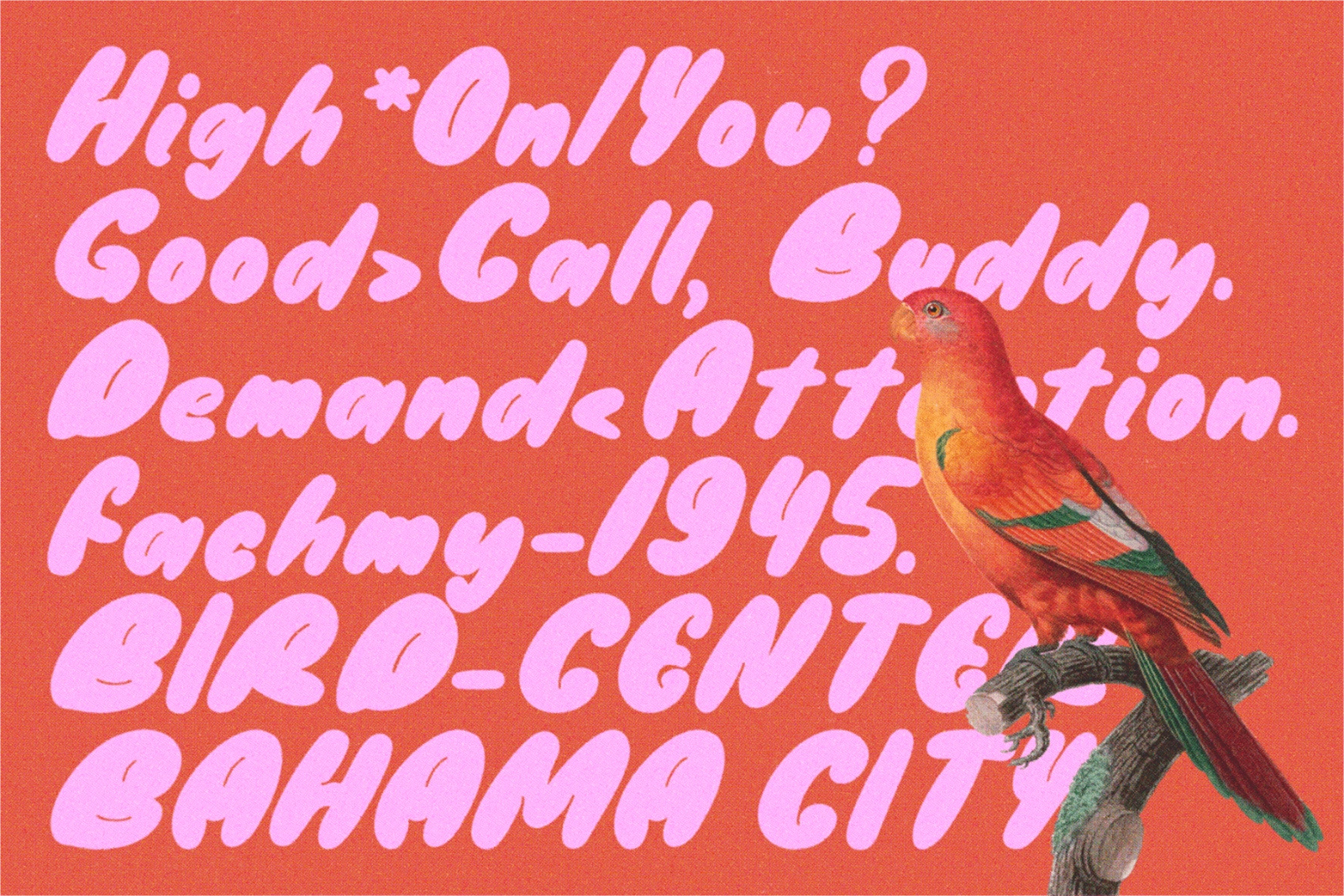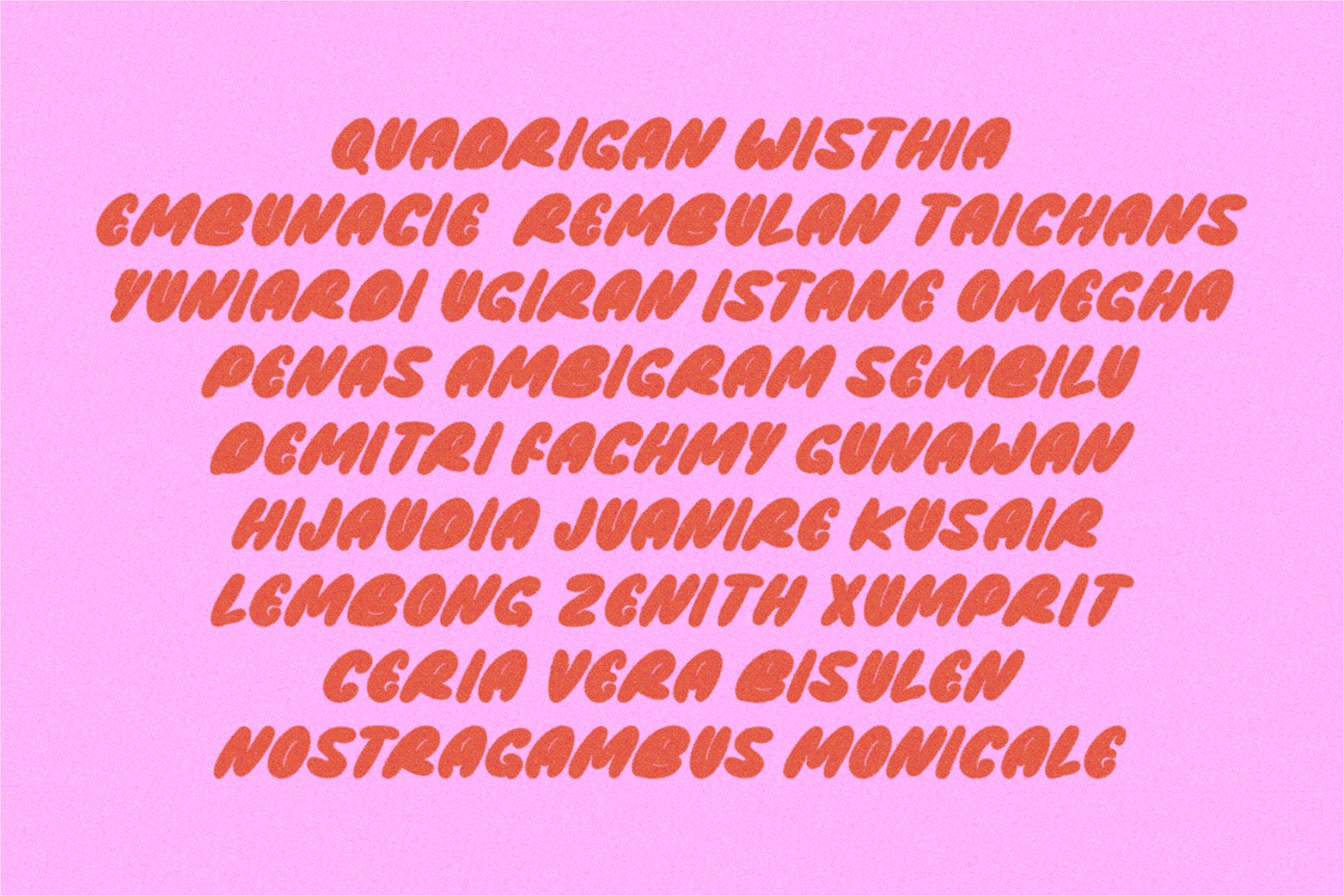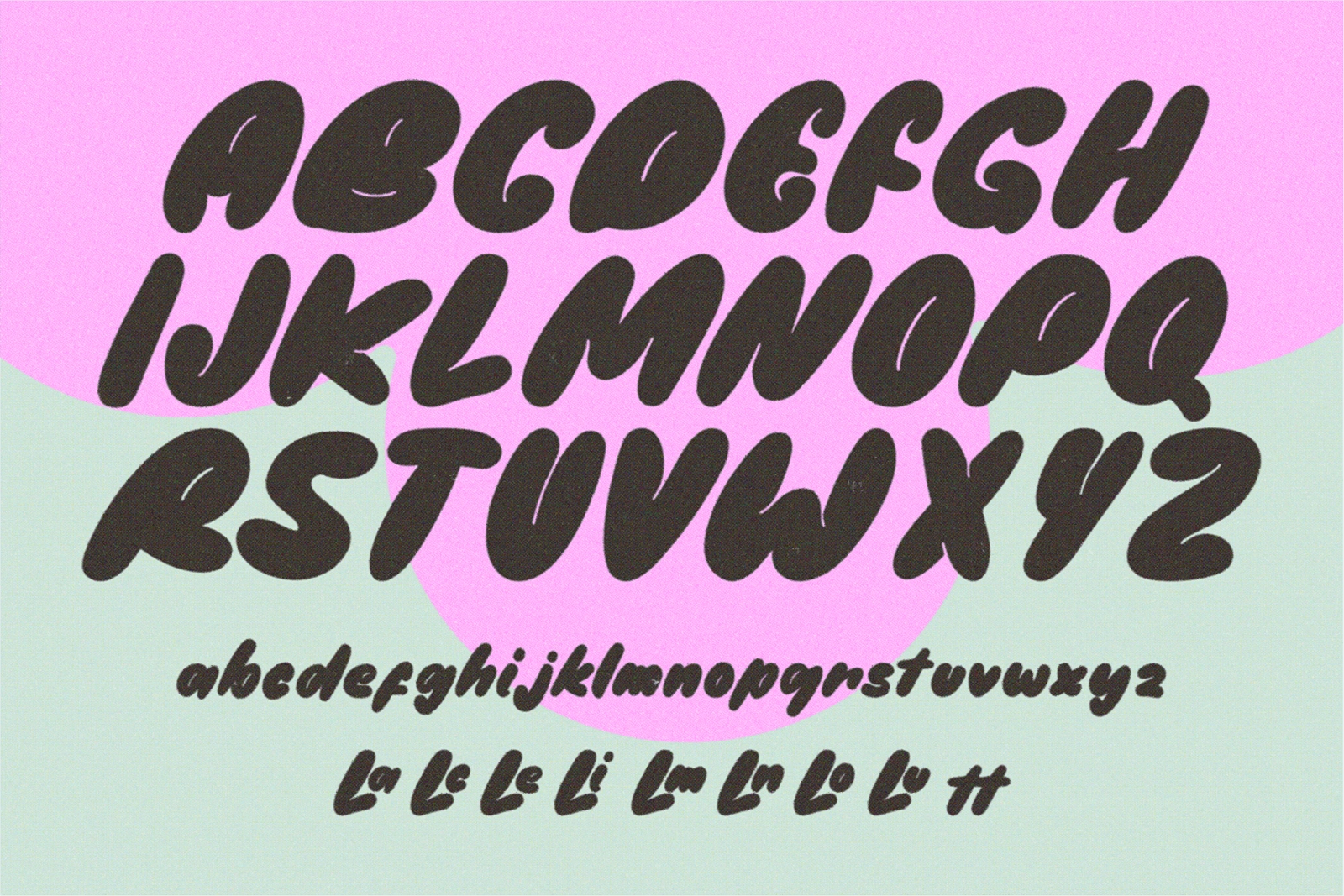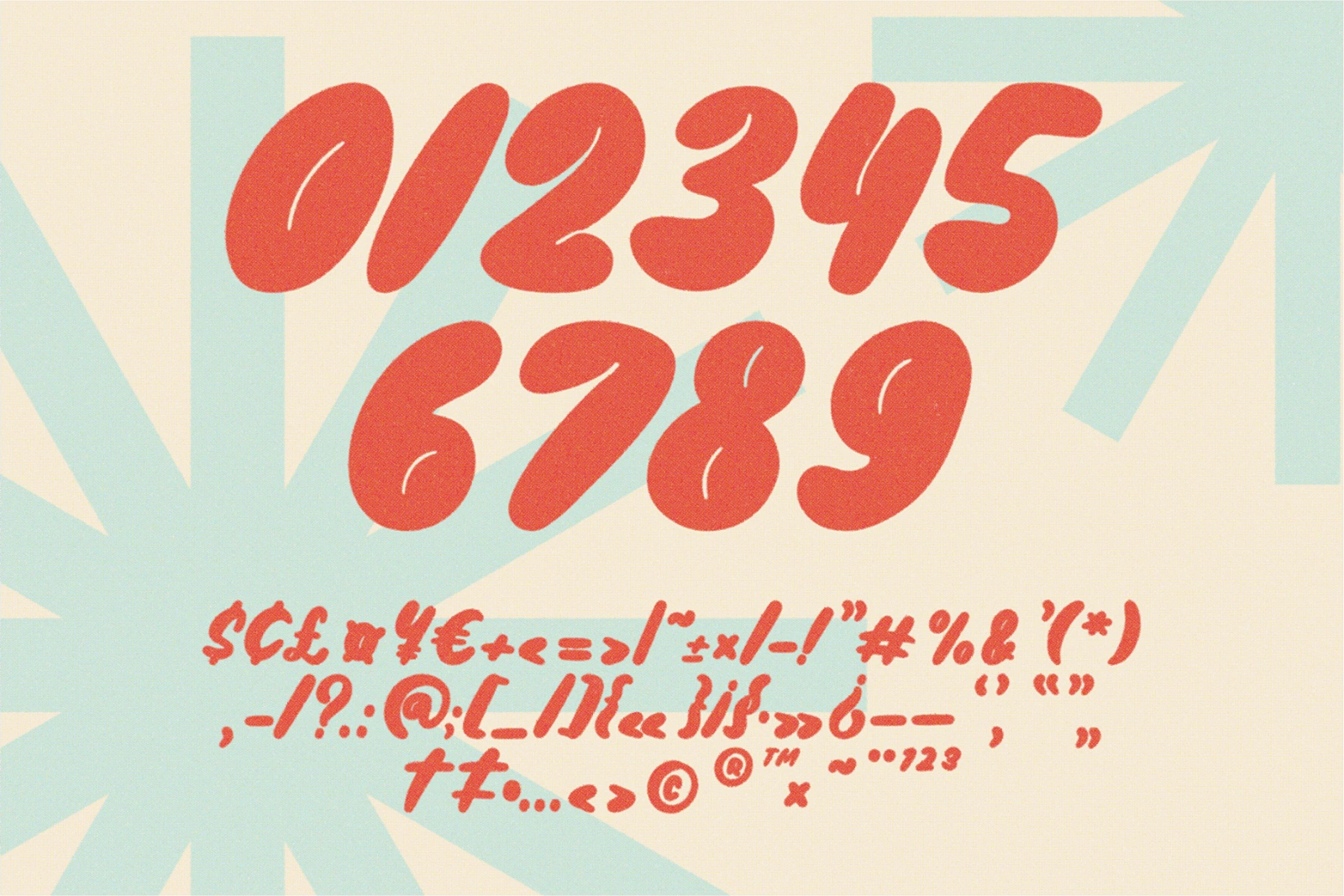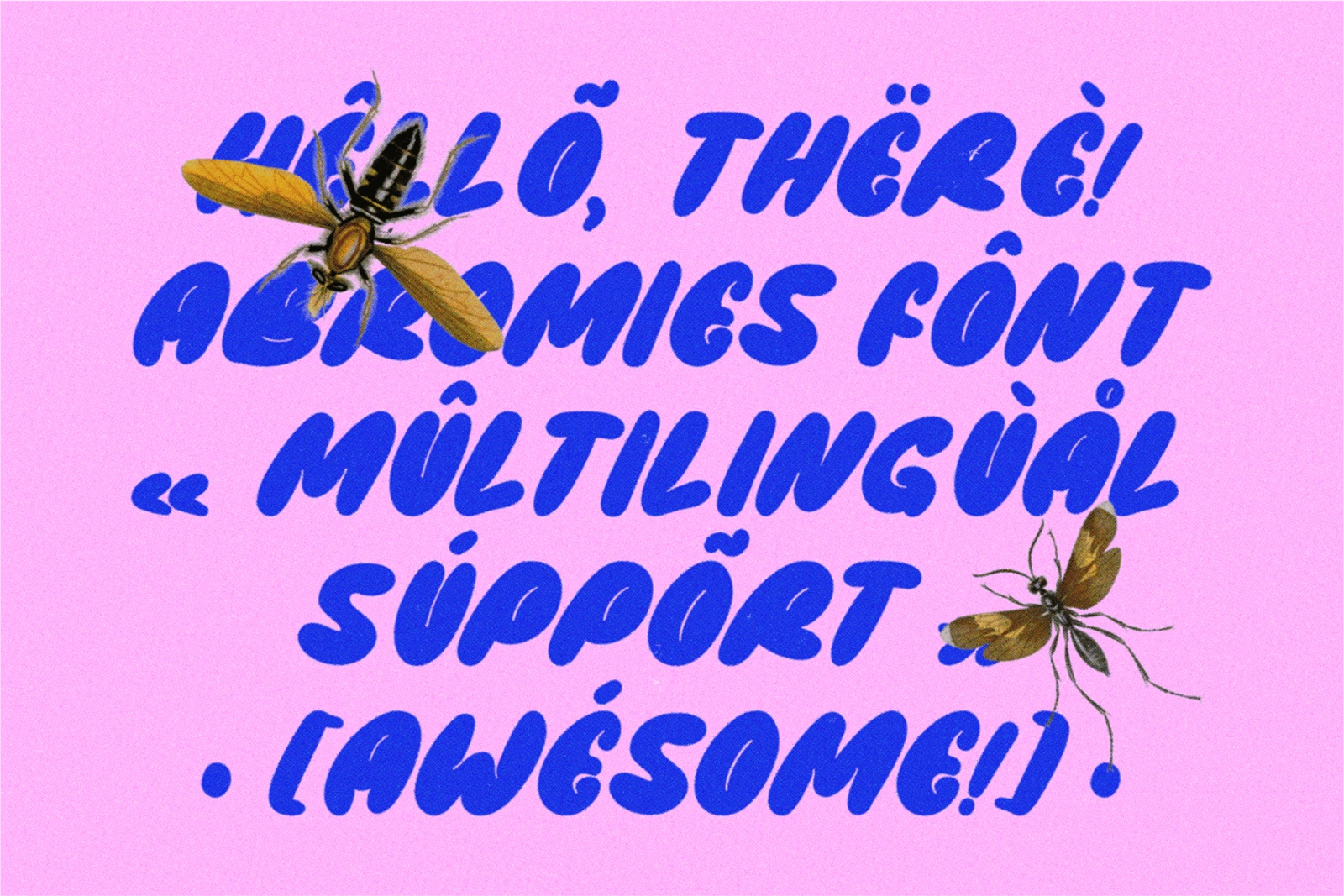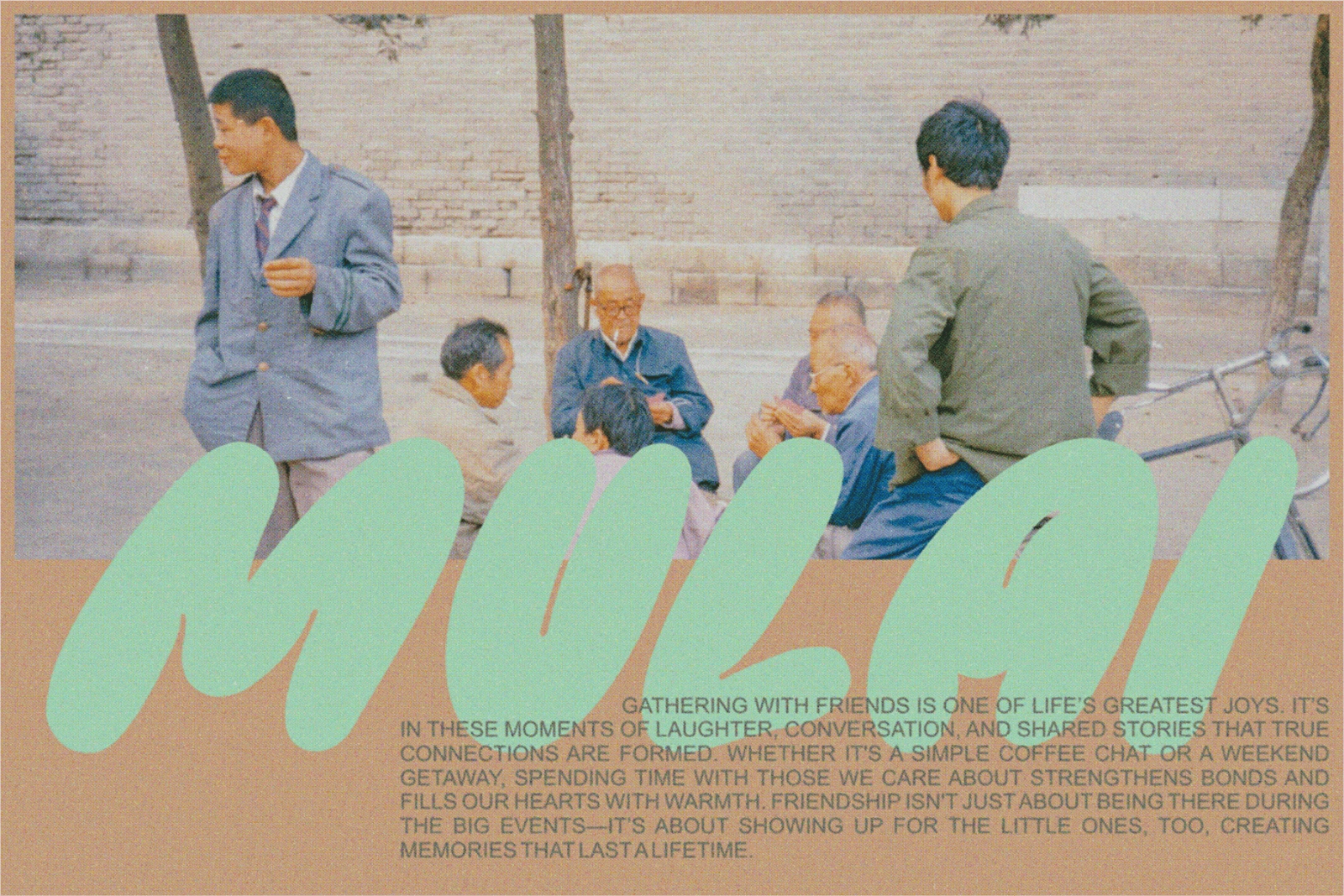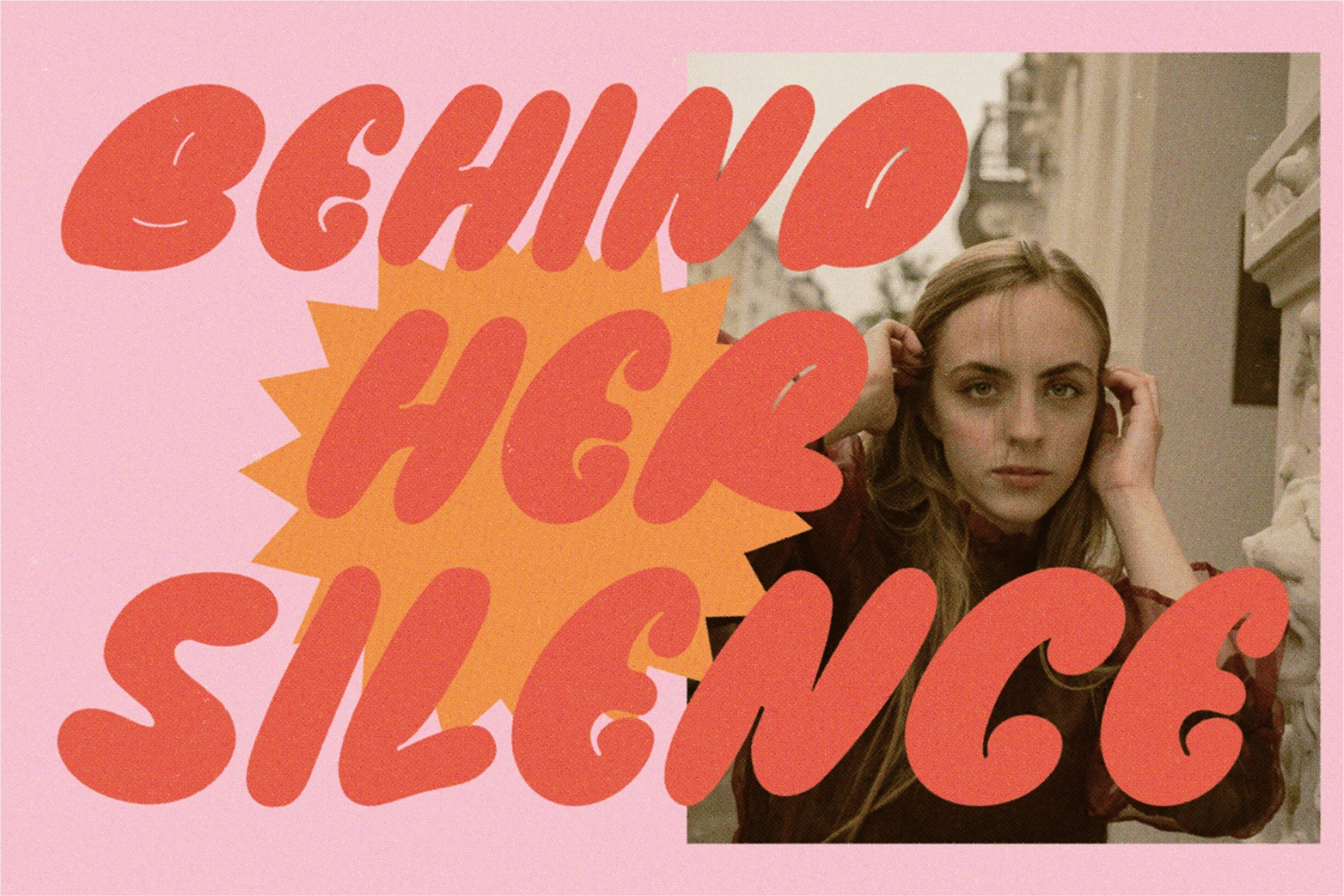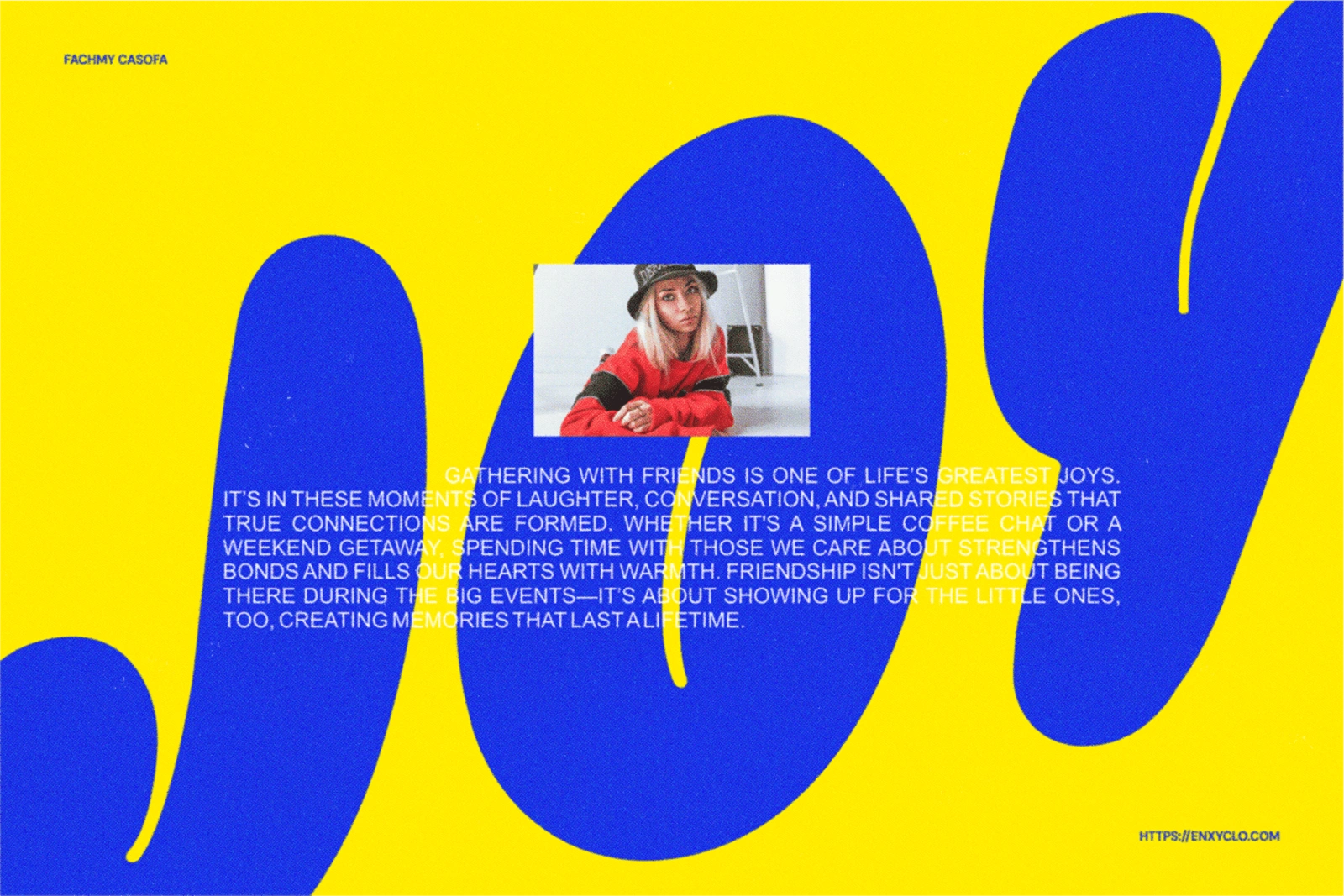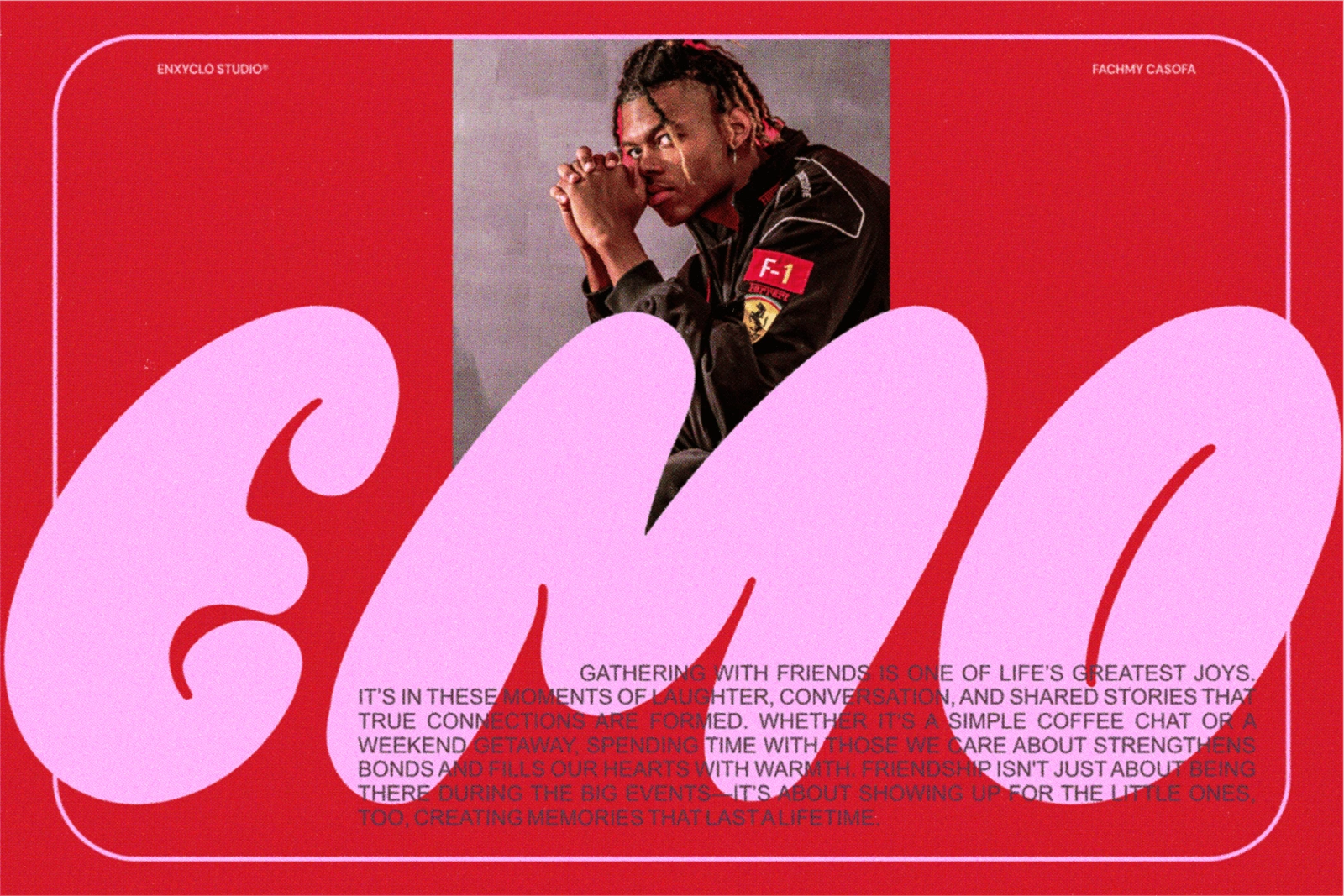
MarketplaceFontsAbromies - Bold Fat Bubble Logo Branding Font
Abromies is a playful and eye-catching bubble font that brings bold character and joyful energy to any design. With its thick, rounded letters and soft curves, this fat display typeface is perfect for grabbing attention while still feeling friendly and approachable. Ideal for a wide range of creative projects, Abromies font works beautifully on posters, product packaging, children’s books, social media graphics, branding, logos, stickers, and anything that needs a touch of fun and personality. Whether you’re designing for a playful brand or simply want to add a cheerful vibe to your message, this font will pop right off the page. Let Abromies font add a dose of fun and flair to your next design project!
• 221 Glyphs
• Numeral, Punctuation & Symbols
• Ligature and Multilingual Support